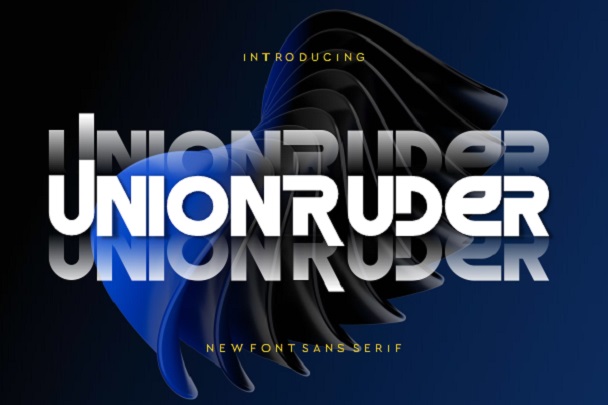
Unionruder Font
UnionRuder Sans-serif fonts refers to that class of typeface that doesn’t have the small extensions called “serifs” at the end of letters. The name “sans-serif” in fact originates from the French term “sans” which translates to “without. ” These fonts are defined for their contemporary and minimalist appearance that is why they are widely used in digital media and user interfaces.
Unionruder Sans Serif Font